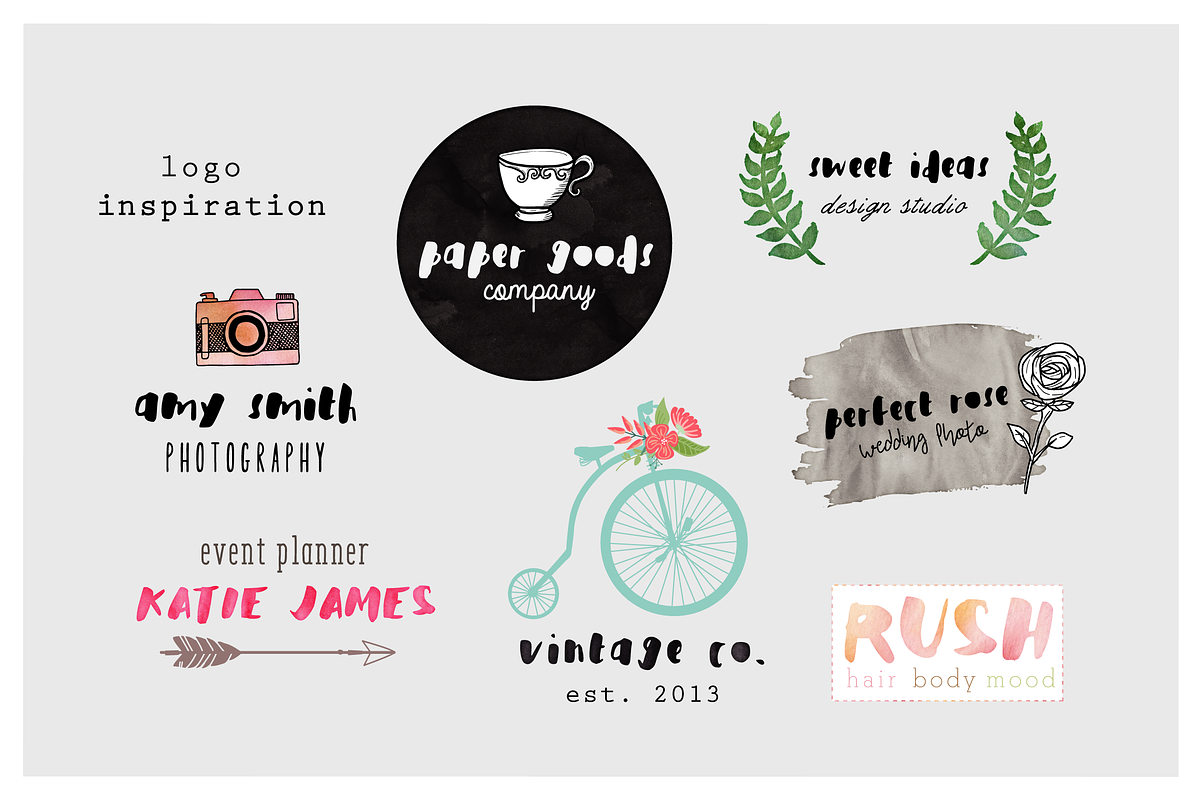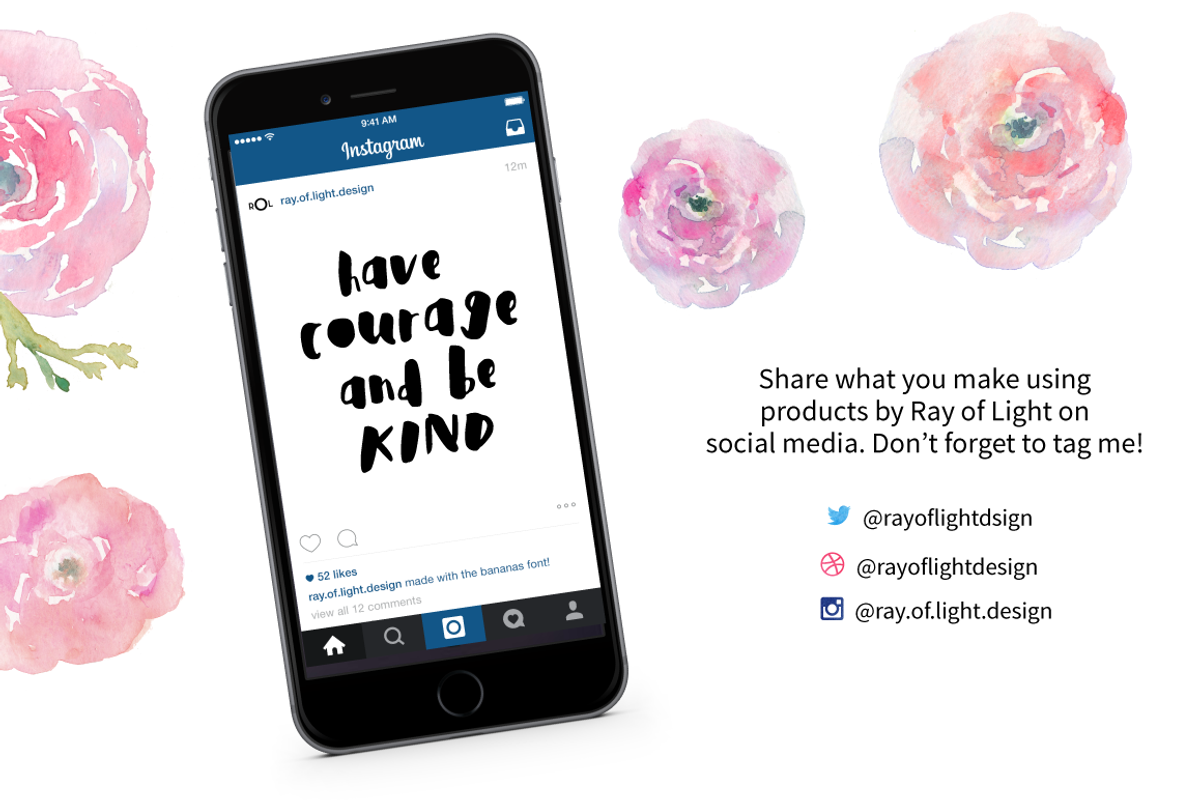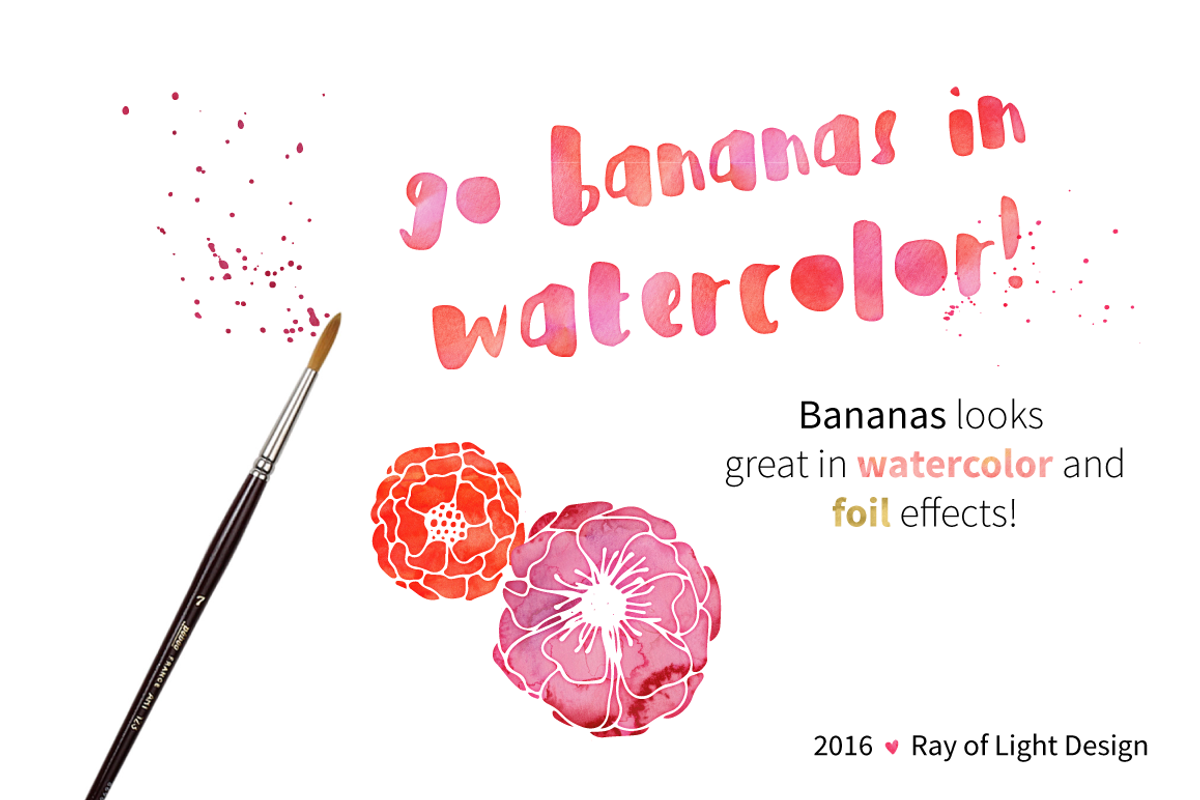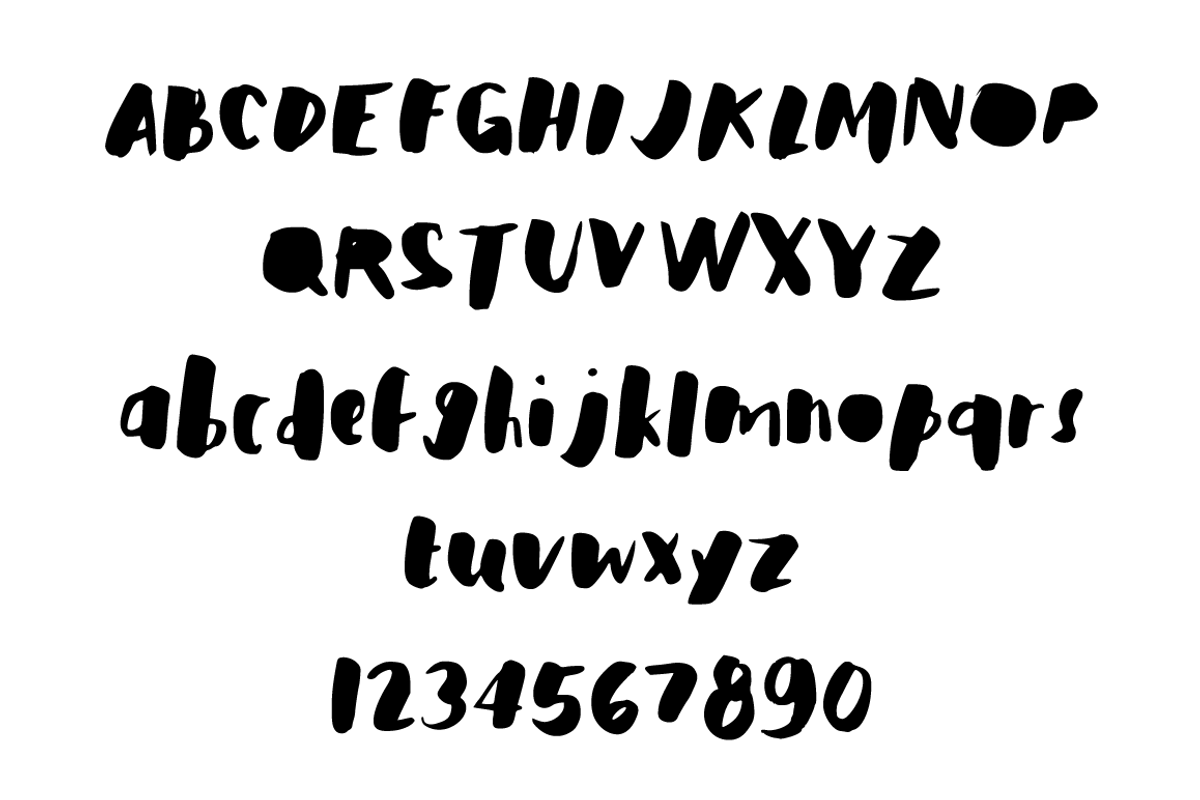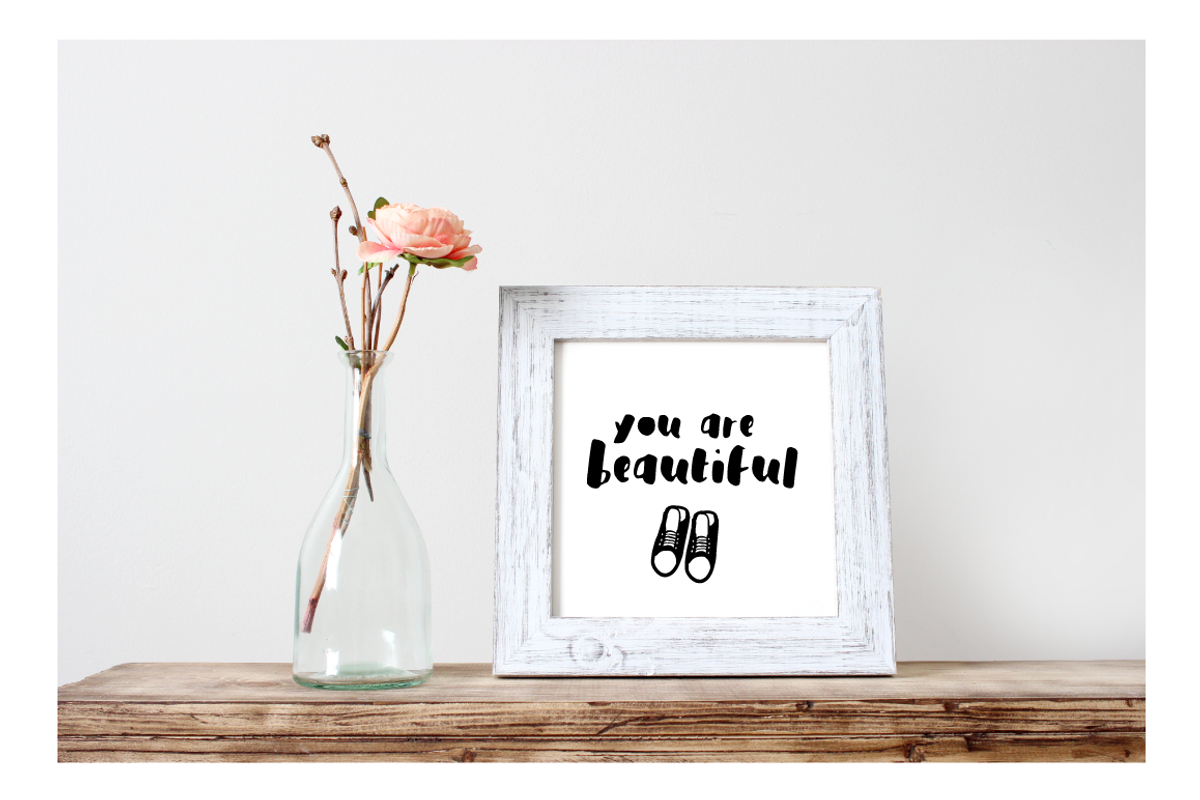
Bananas Brush Font
Bananas Brush Font by Ray of Light Design is a font selected for branding, posters, packaging, typography.
- Bananas includes over one hundred characters: a full set of capital and lowercase letters, numerals, punctuation marks, and a variety of ext
Why Bananas Brush Font is worth a look
Bananas Brush Font by Ray of Light Design fits naturally into Branding, posters, packaging, typography.